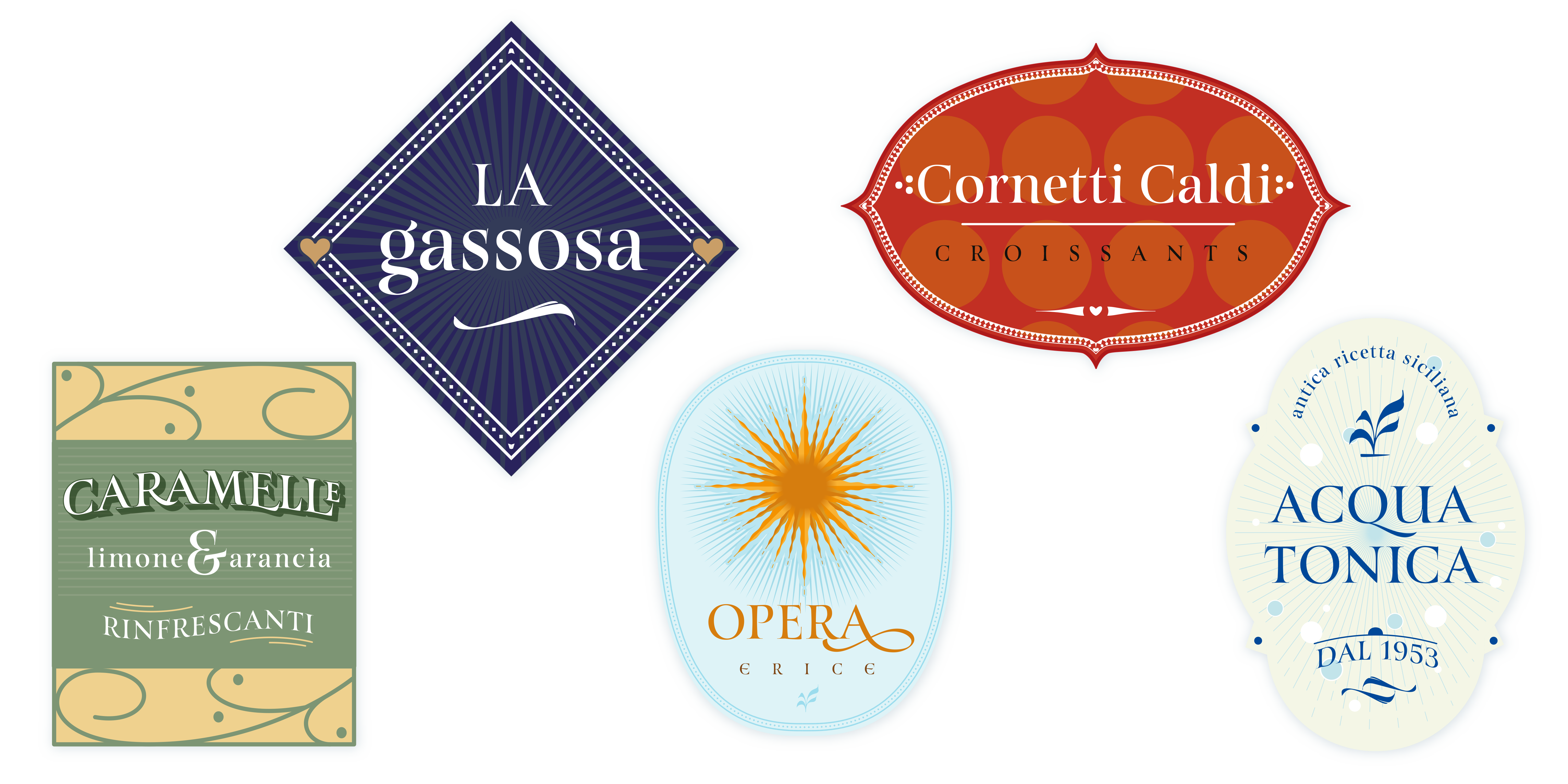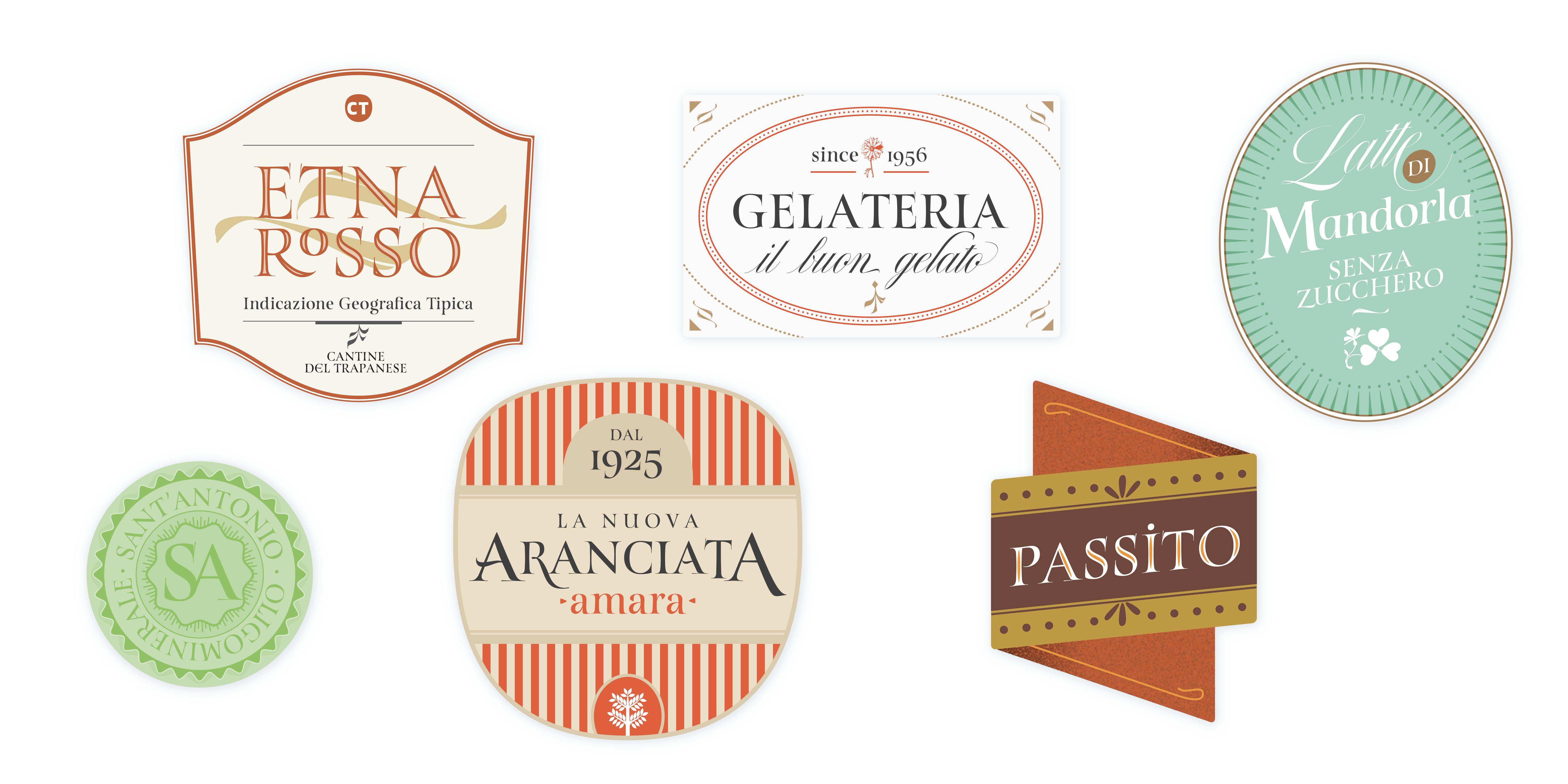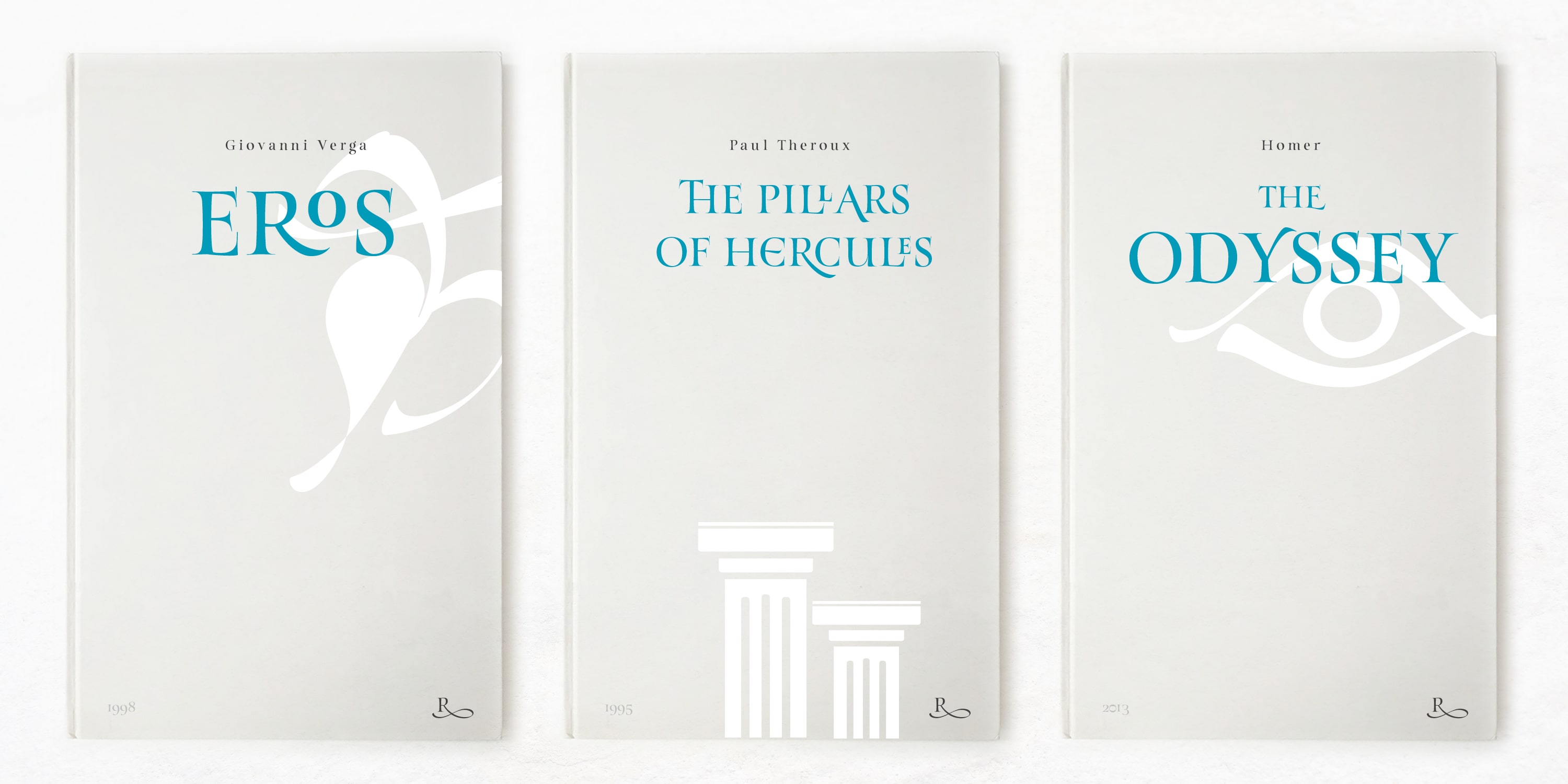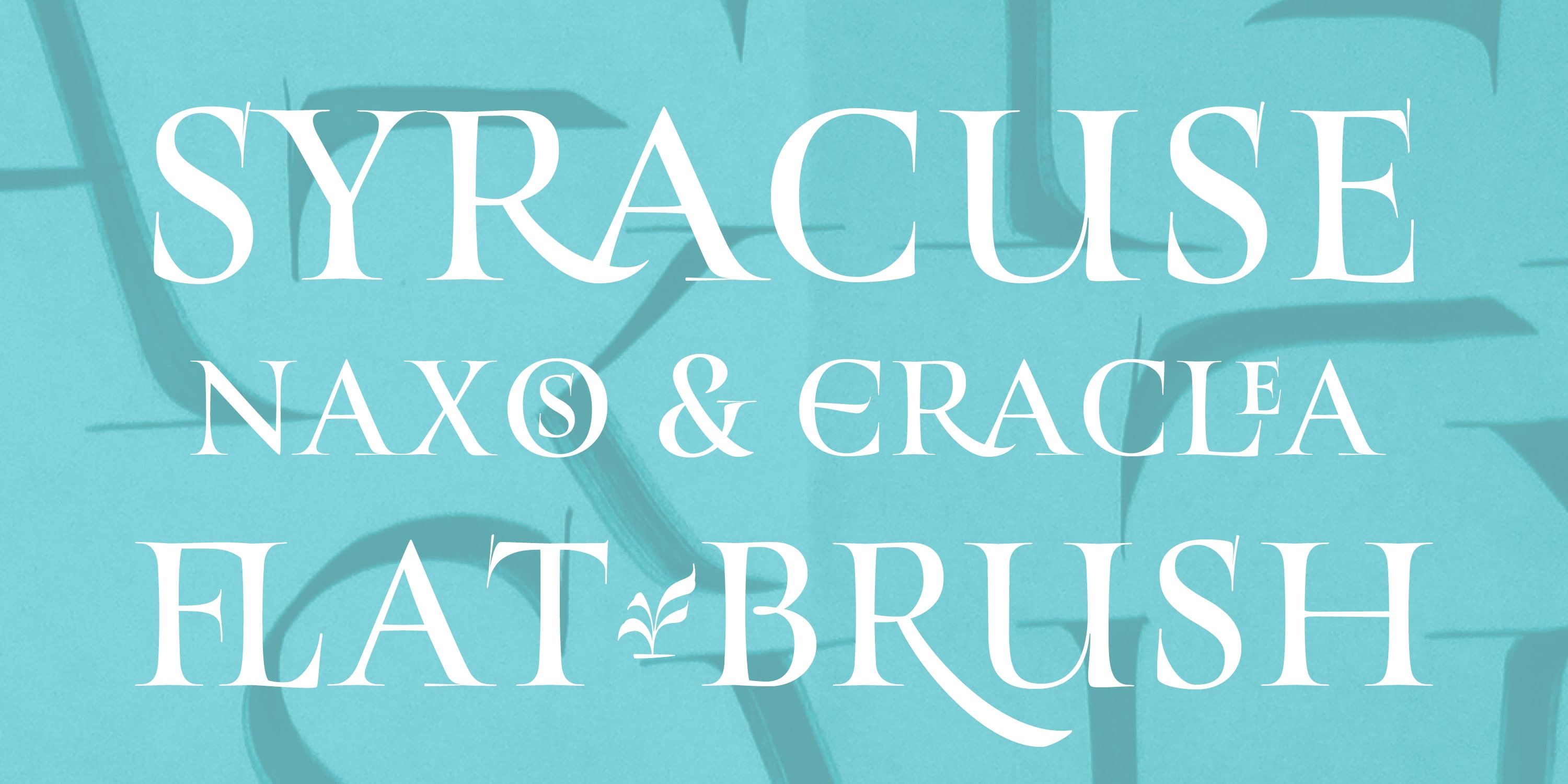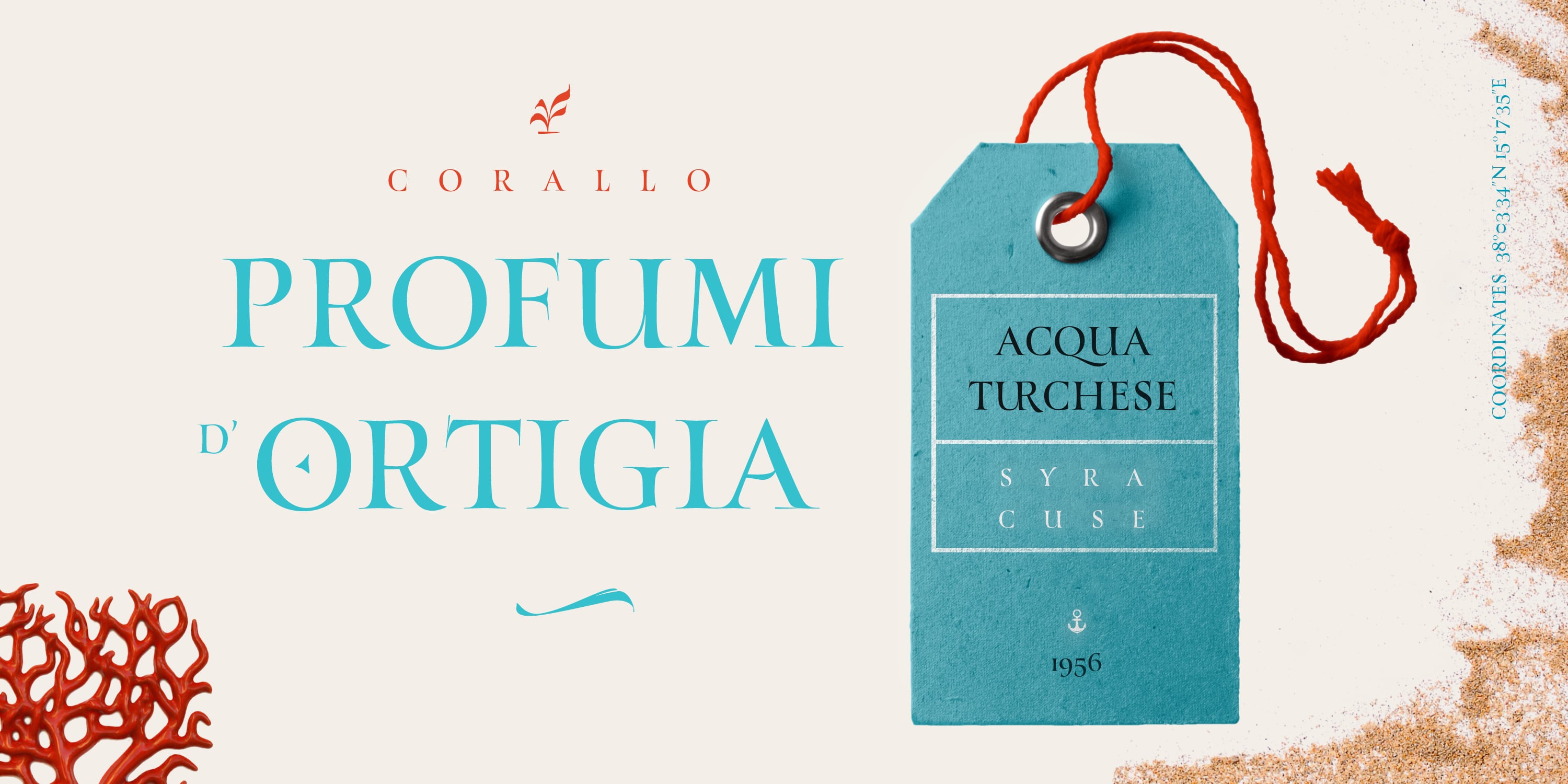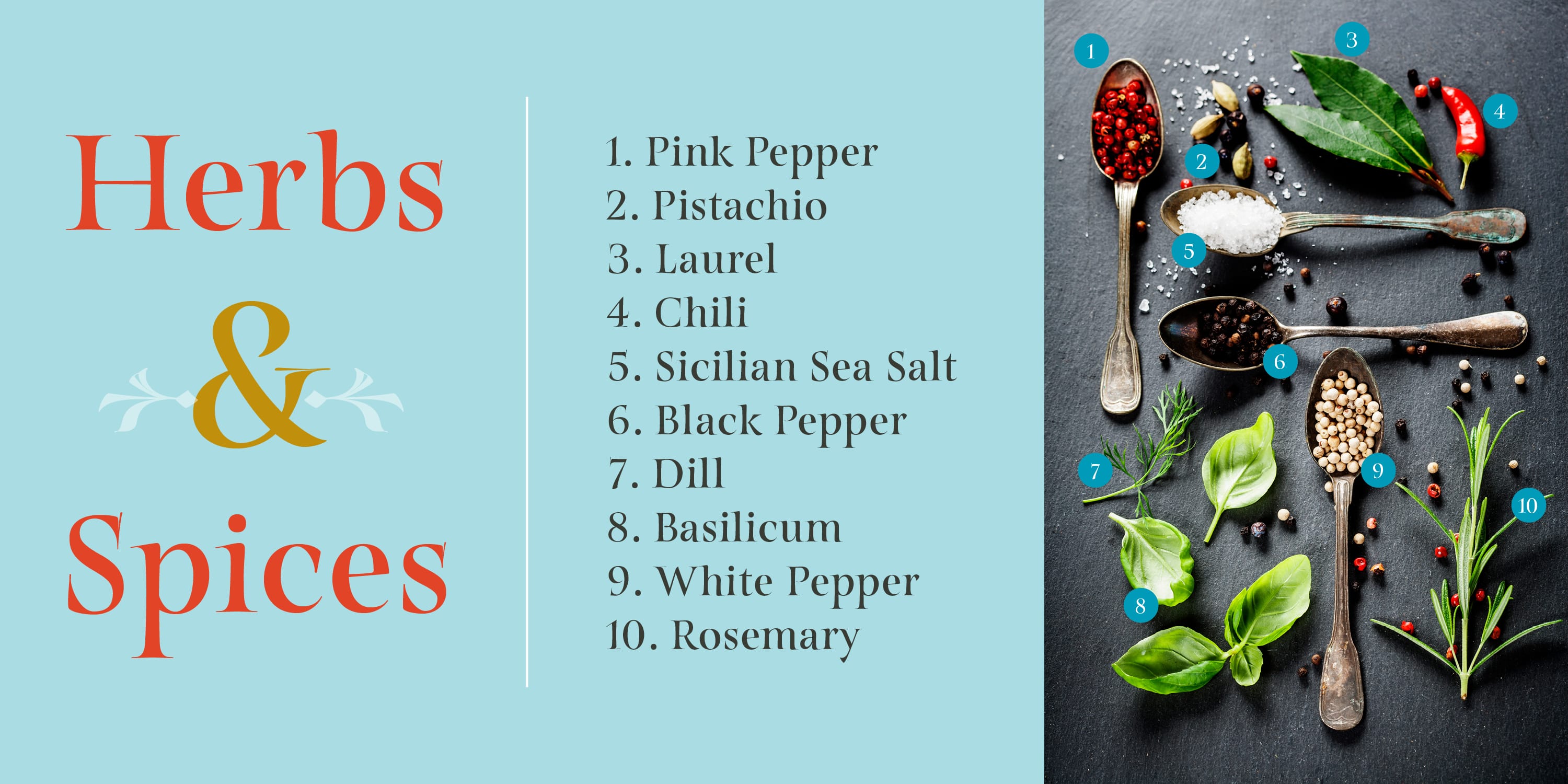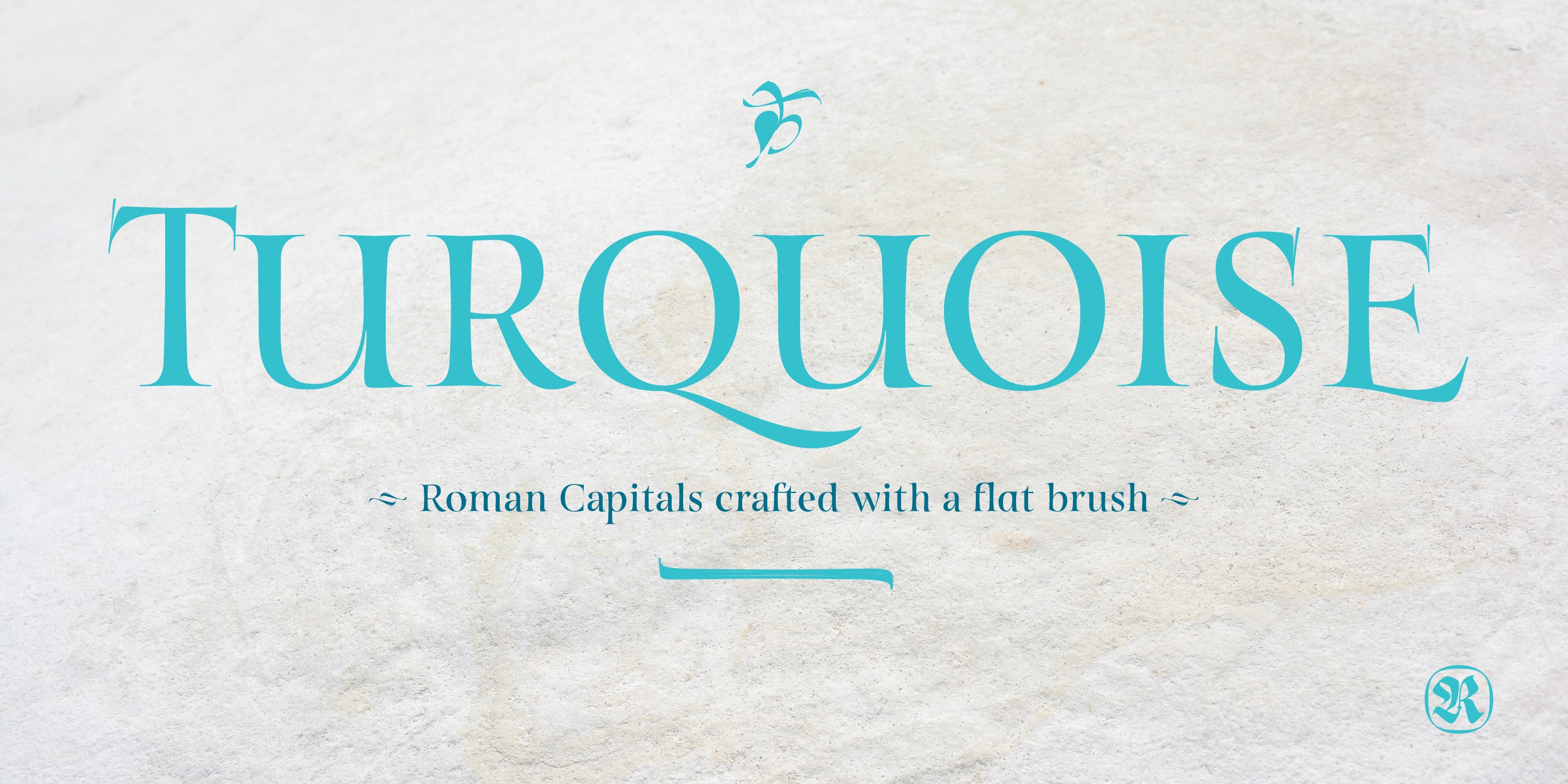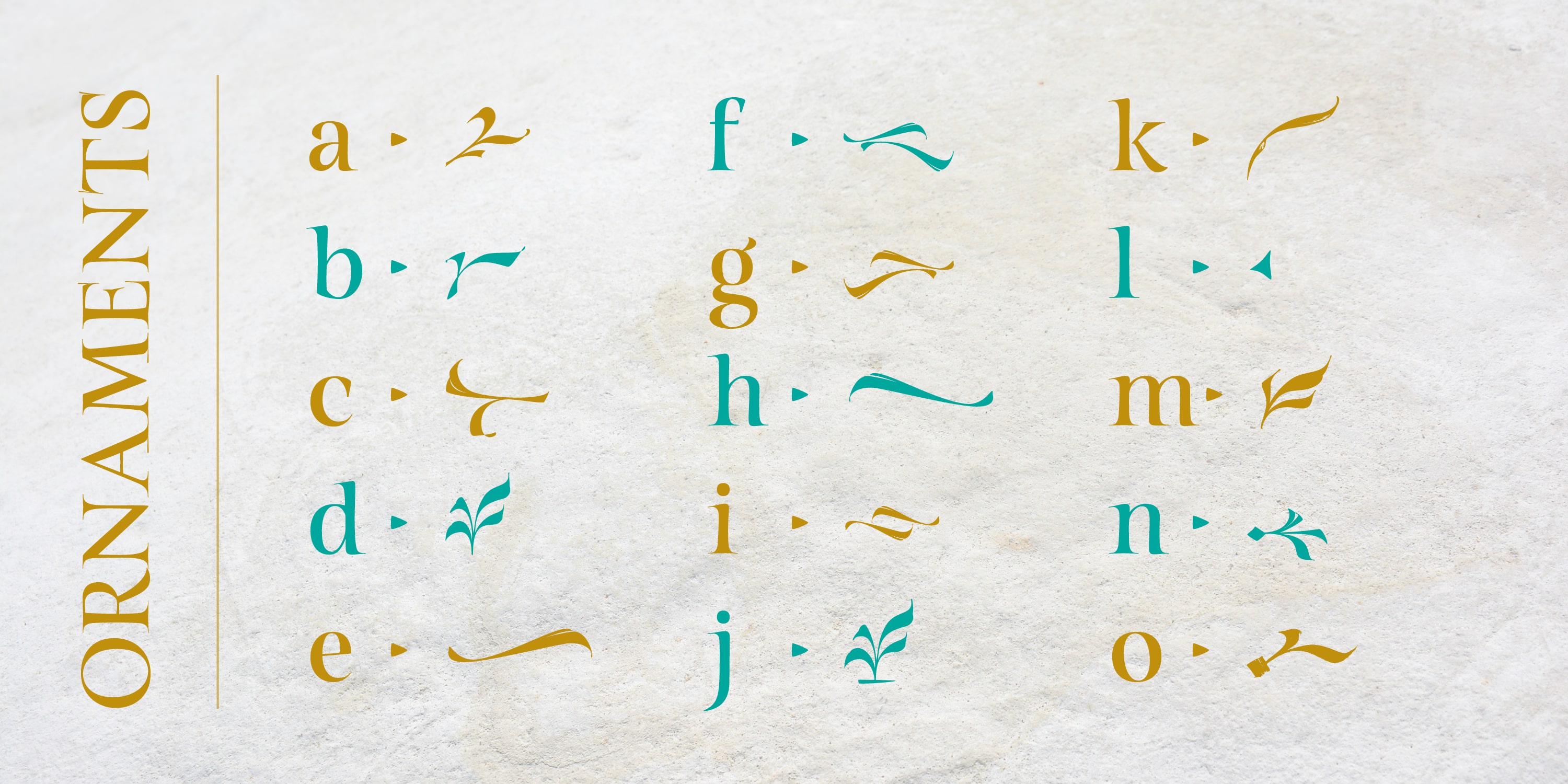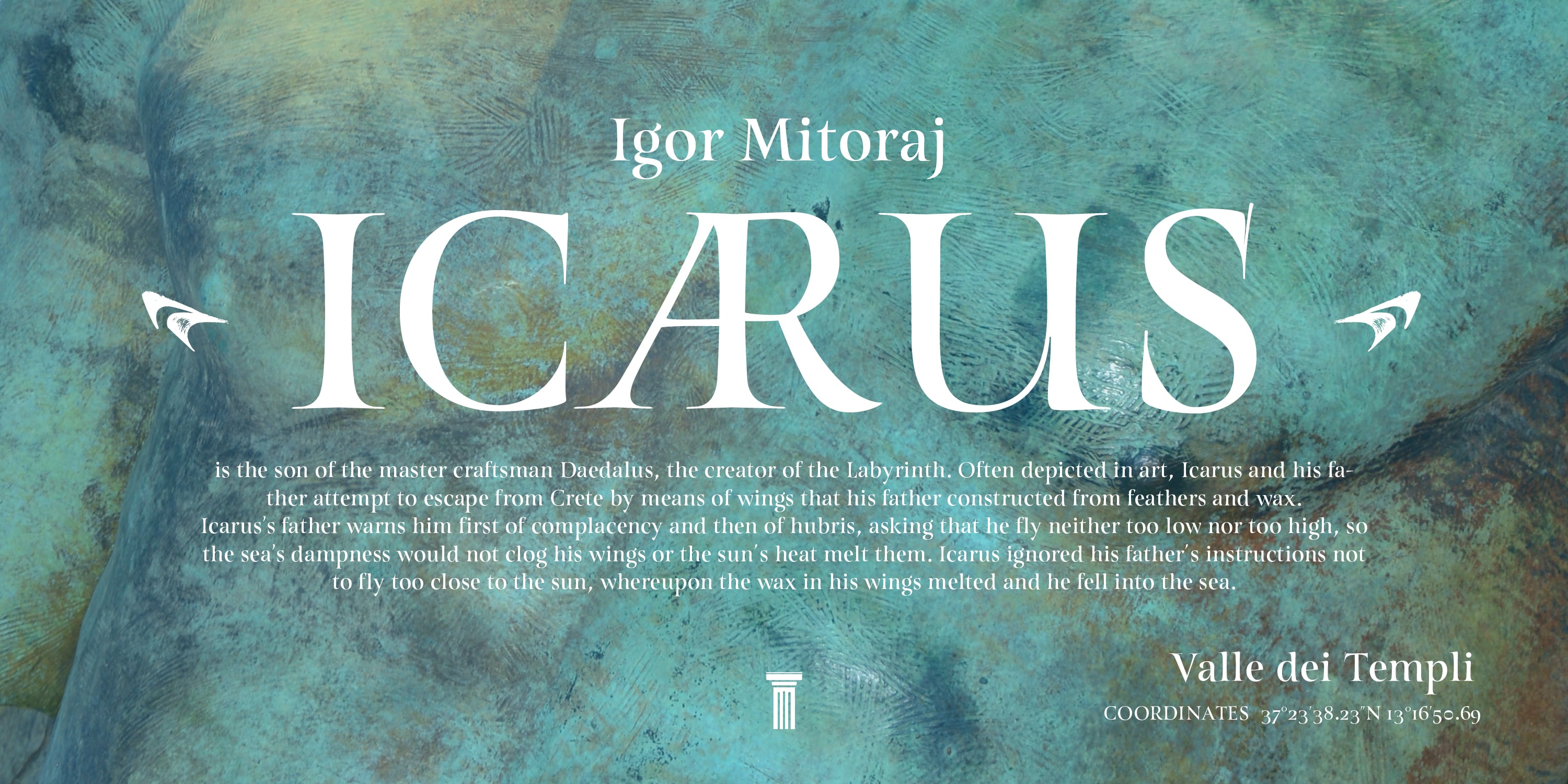
TURQUOISE
Romans caps designed with a flat brush
Turquoise
Designed by Resistenza Type FoundryOur goal was to design Roman Capitals that were smoothly designed with a brush, not carved. The main concept was based on the fundamental strokes that are commonly studied when you practice Roman letters. That’s why many Serifs have these unfinished terminal serifs. Turquoise contains small caps, many discretionary ligatures, ornaments, swashes as well as several brushy nature-inspired ornaments, accessible via OpenType. Ideally suited for headlines or body text in advertising, packaging and visual identities, its delicate shapes, curves and endings give projects a harmonious elegance and stylistic feel in unique Turquoise style.